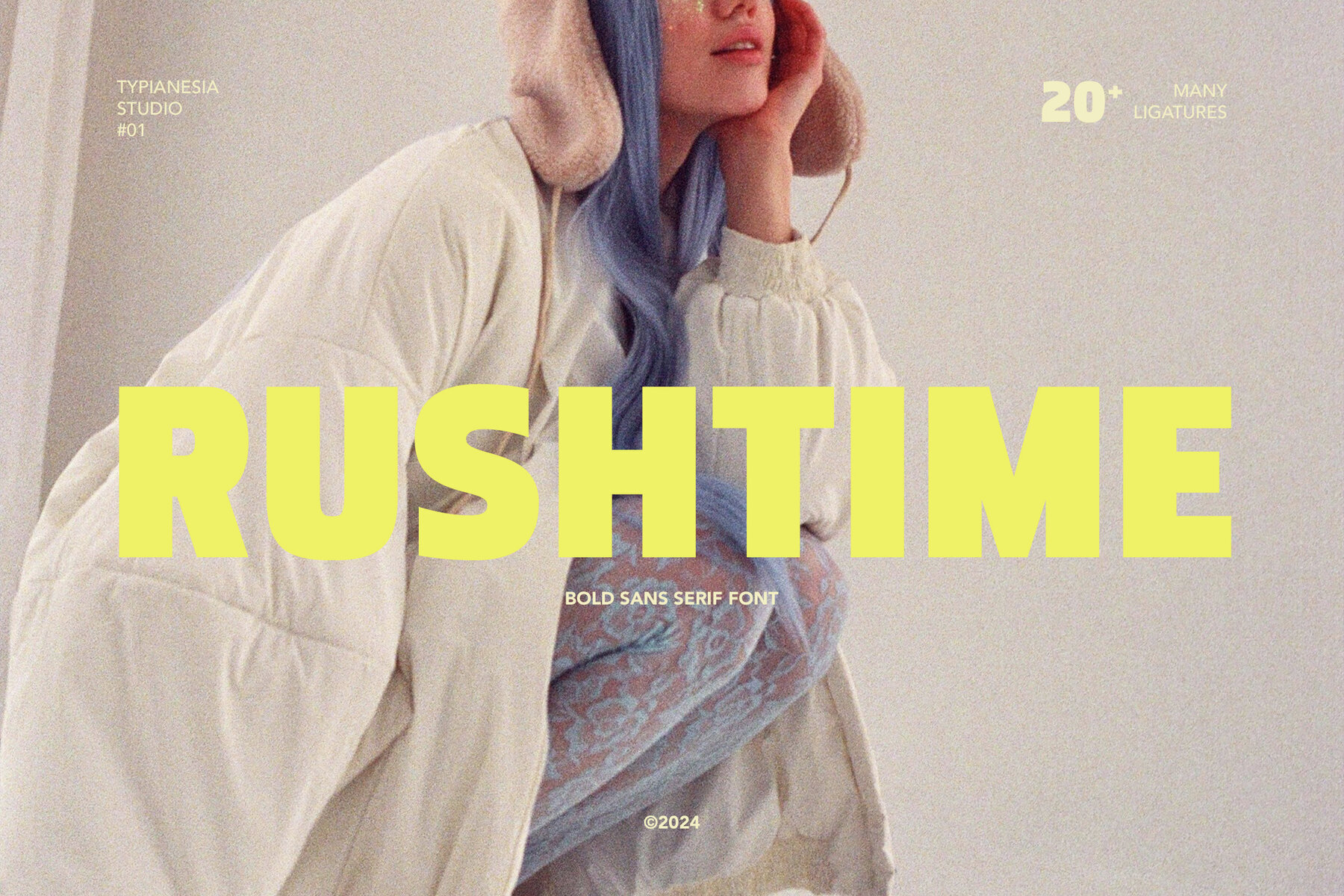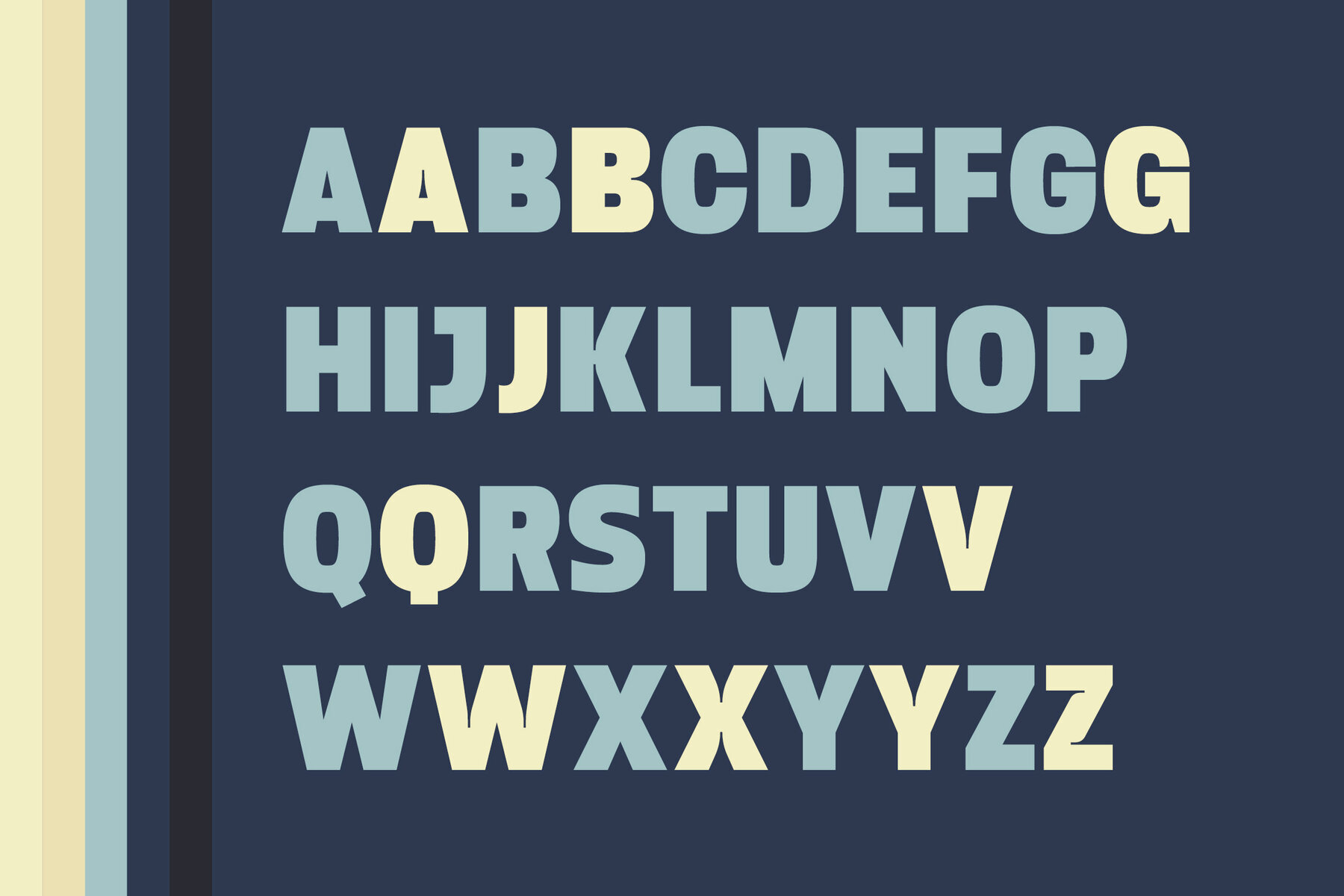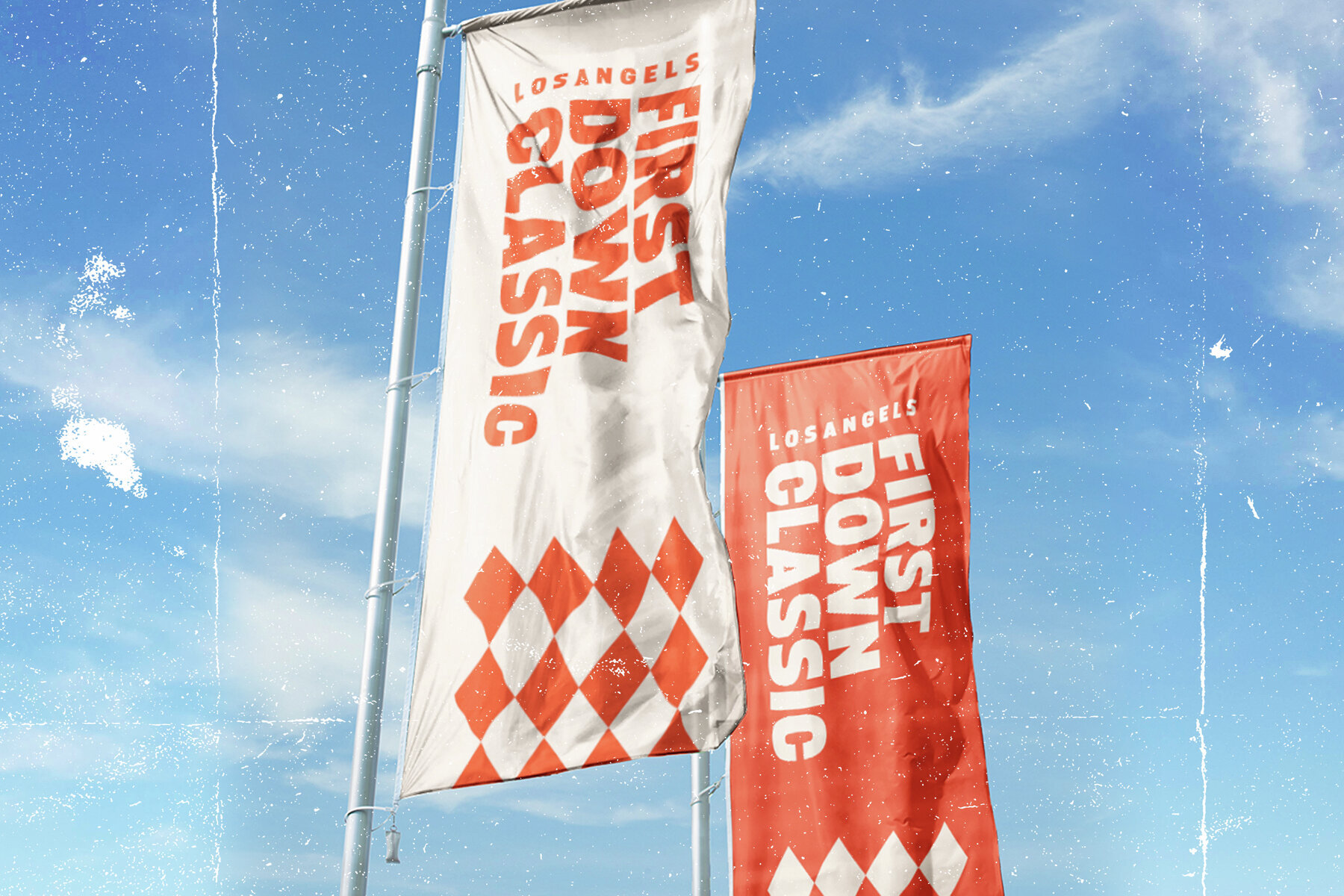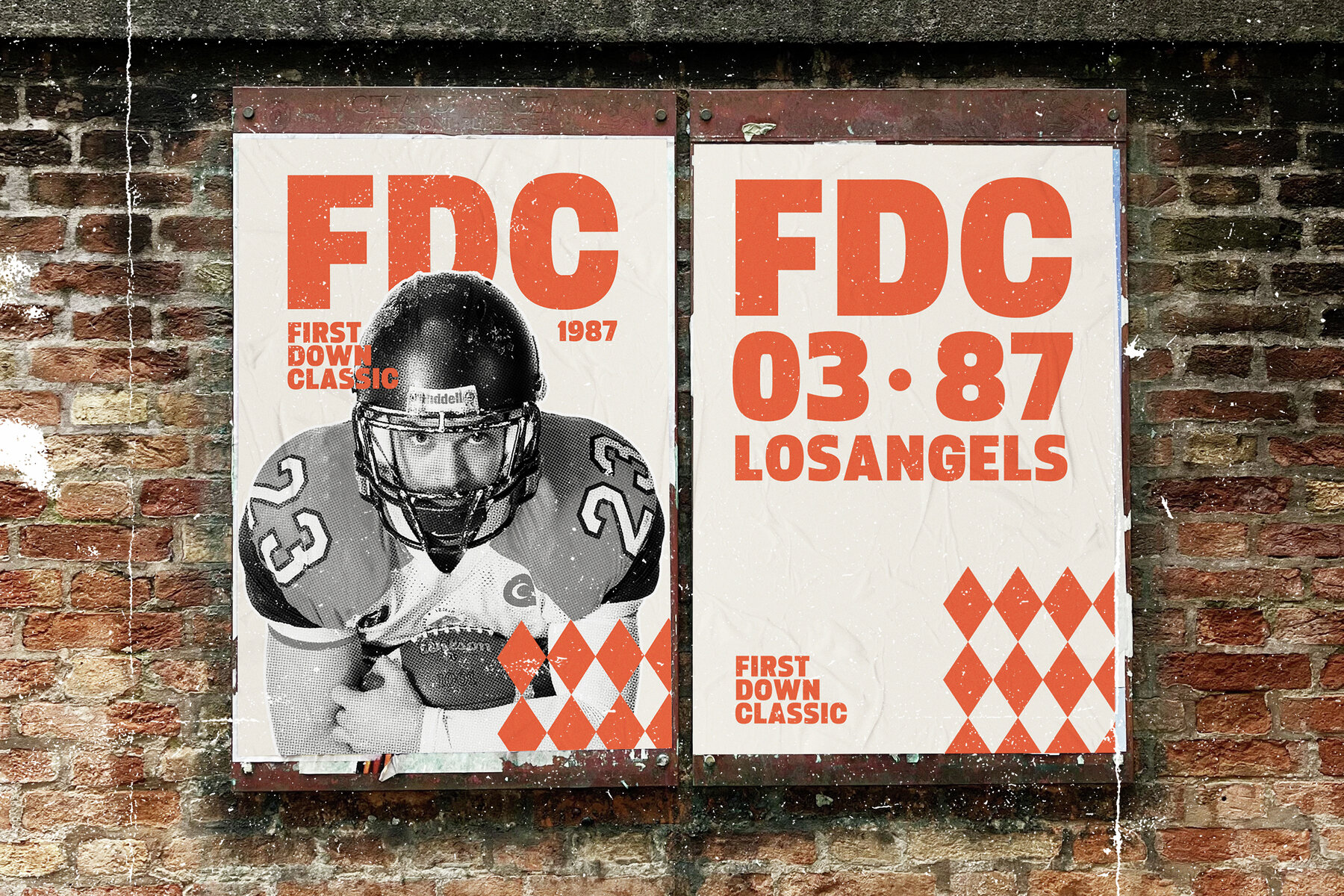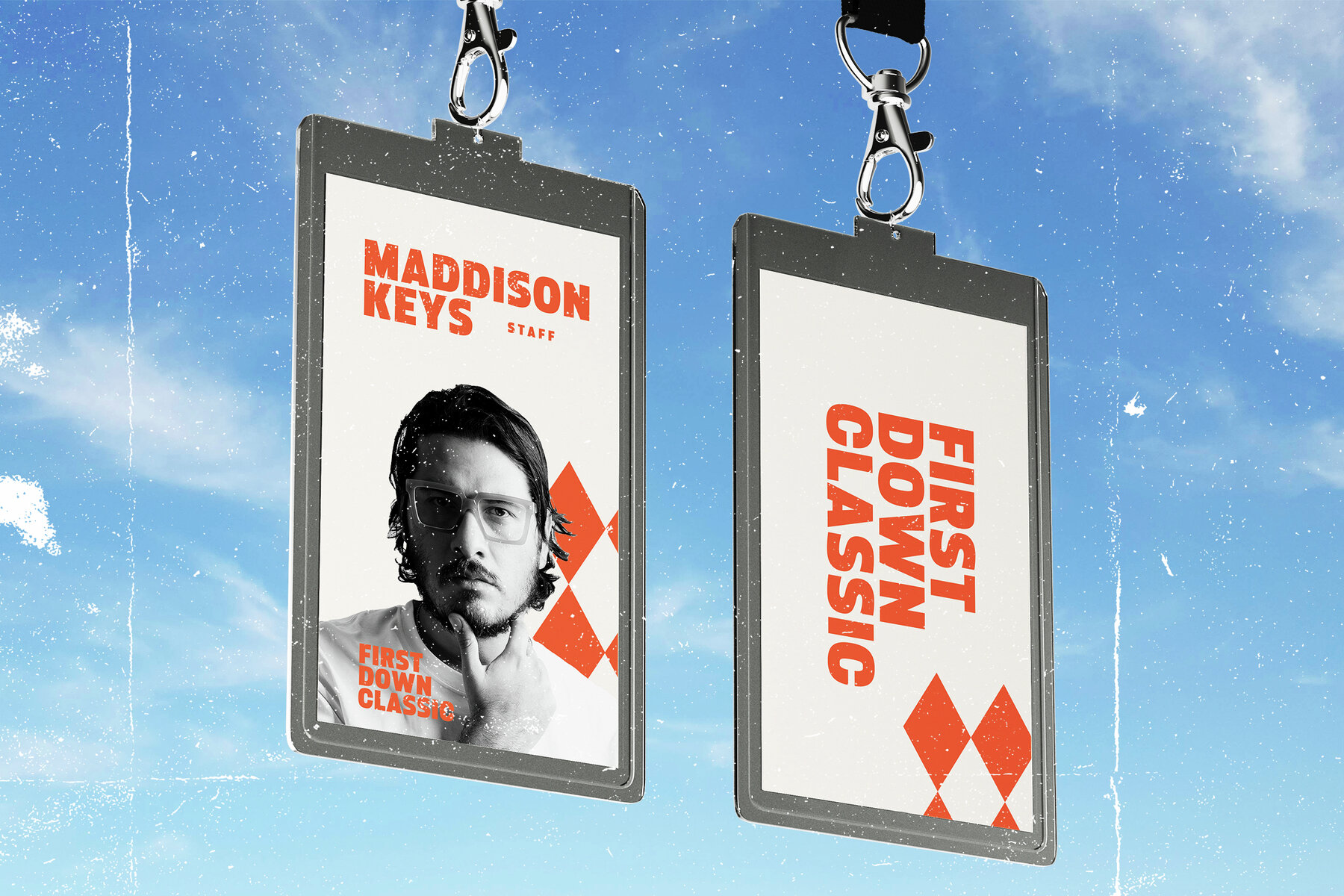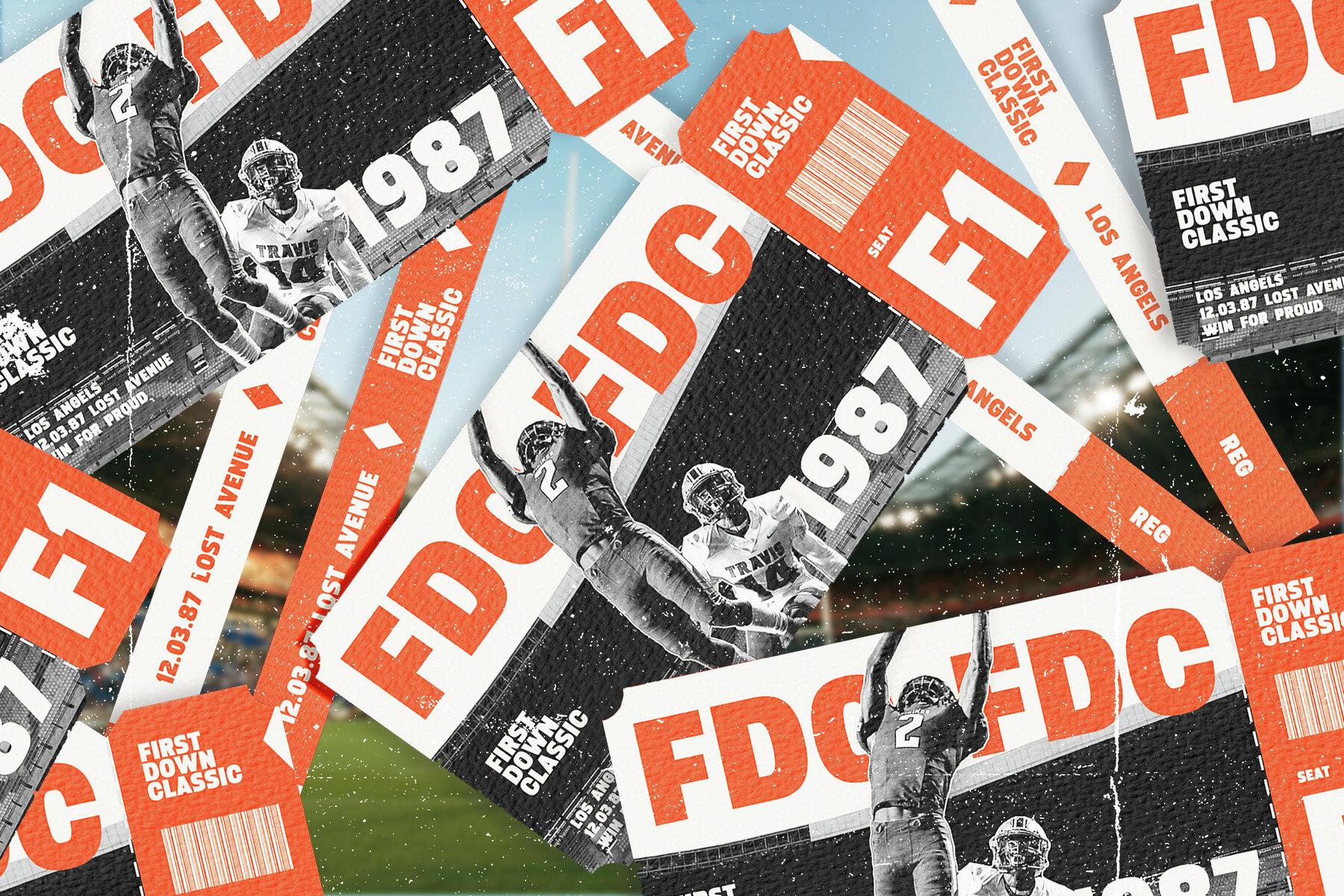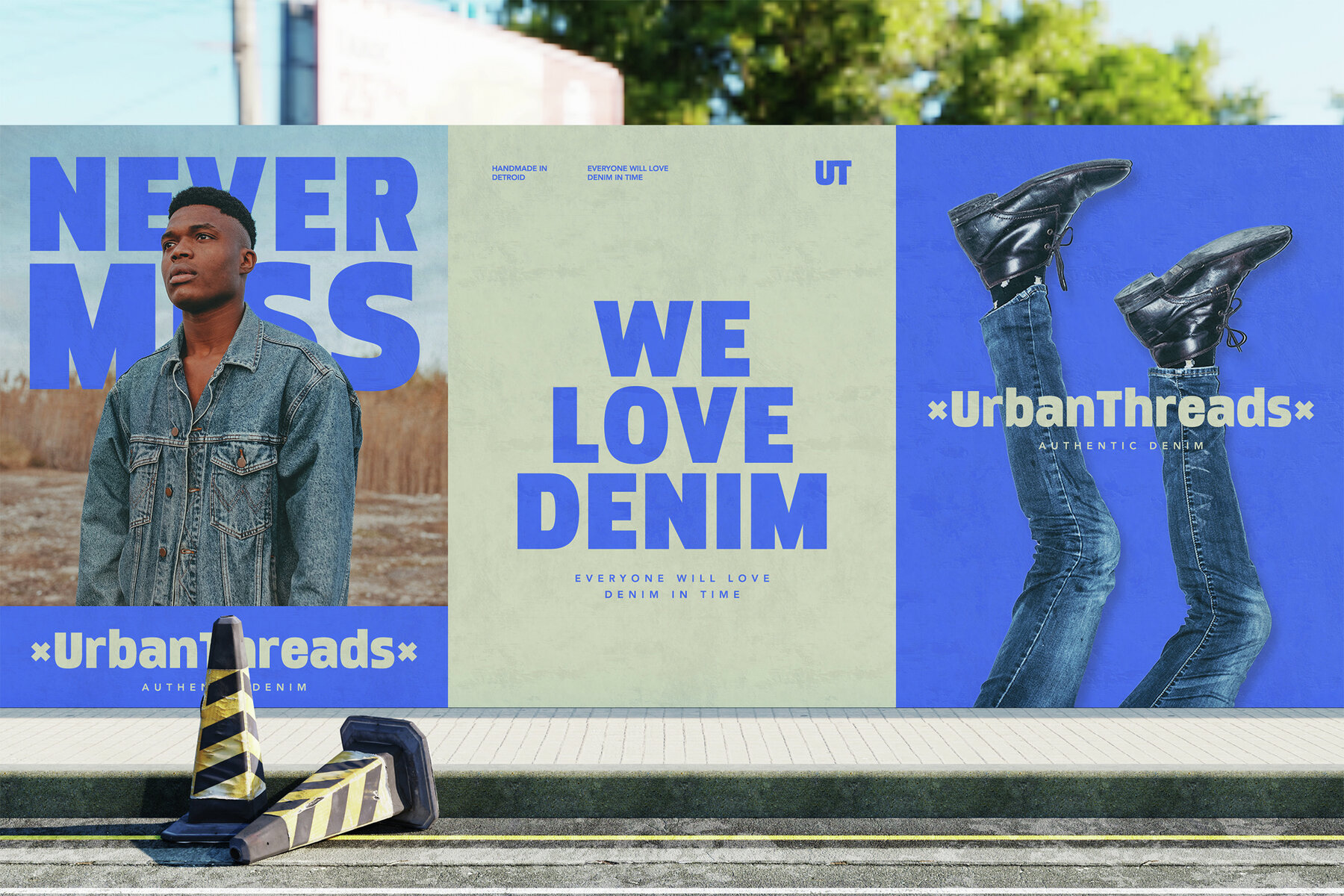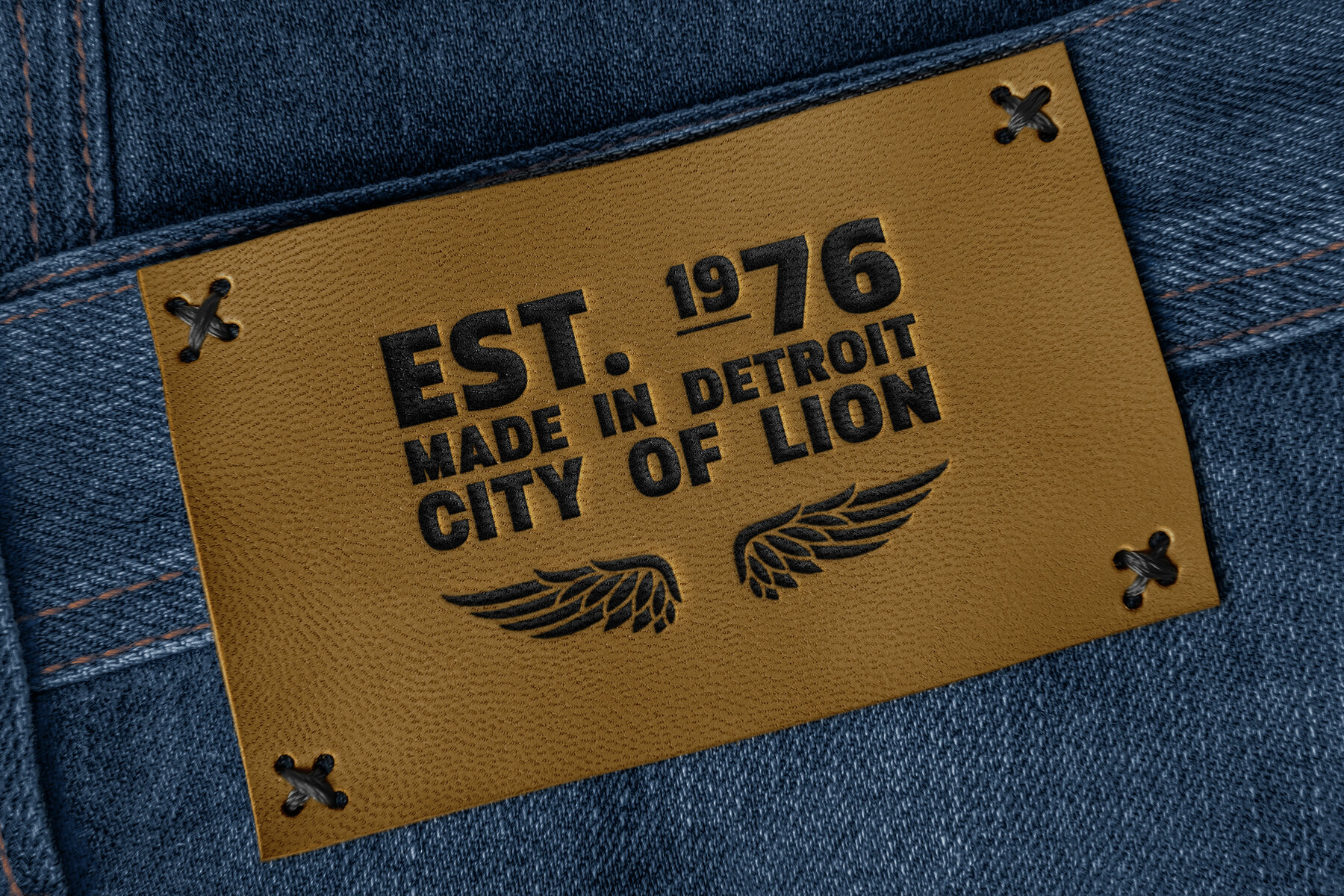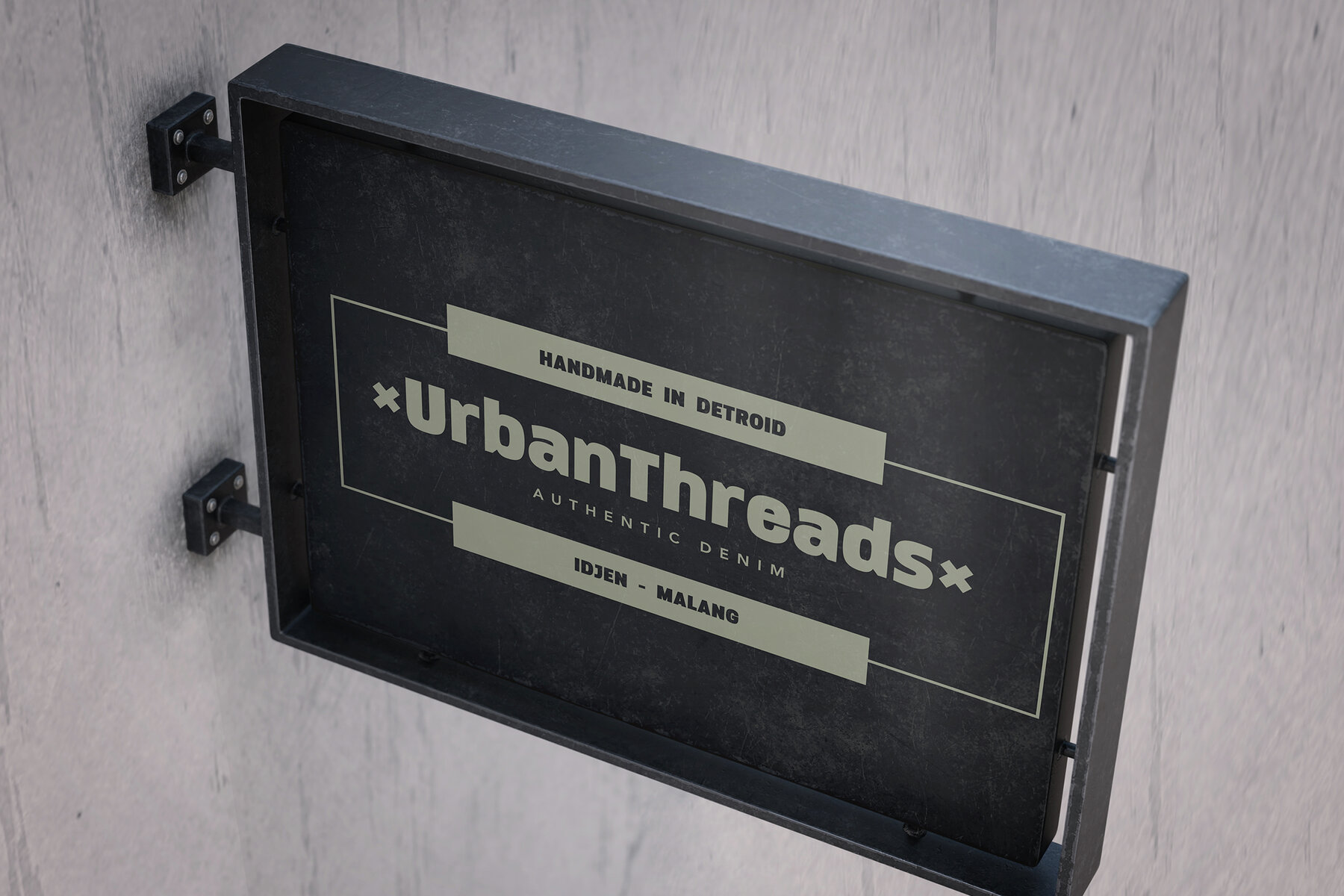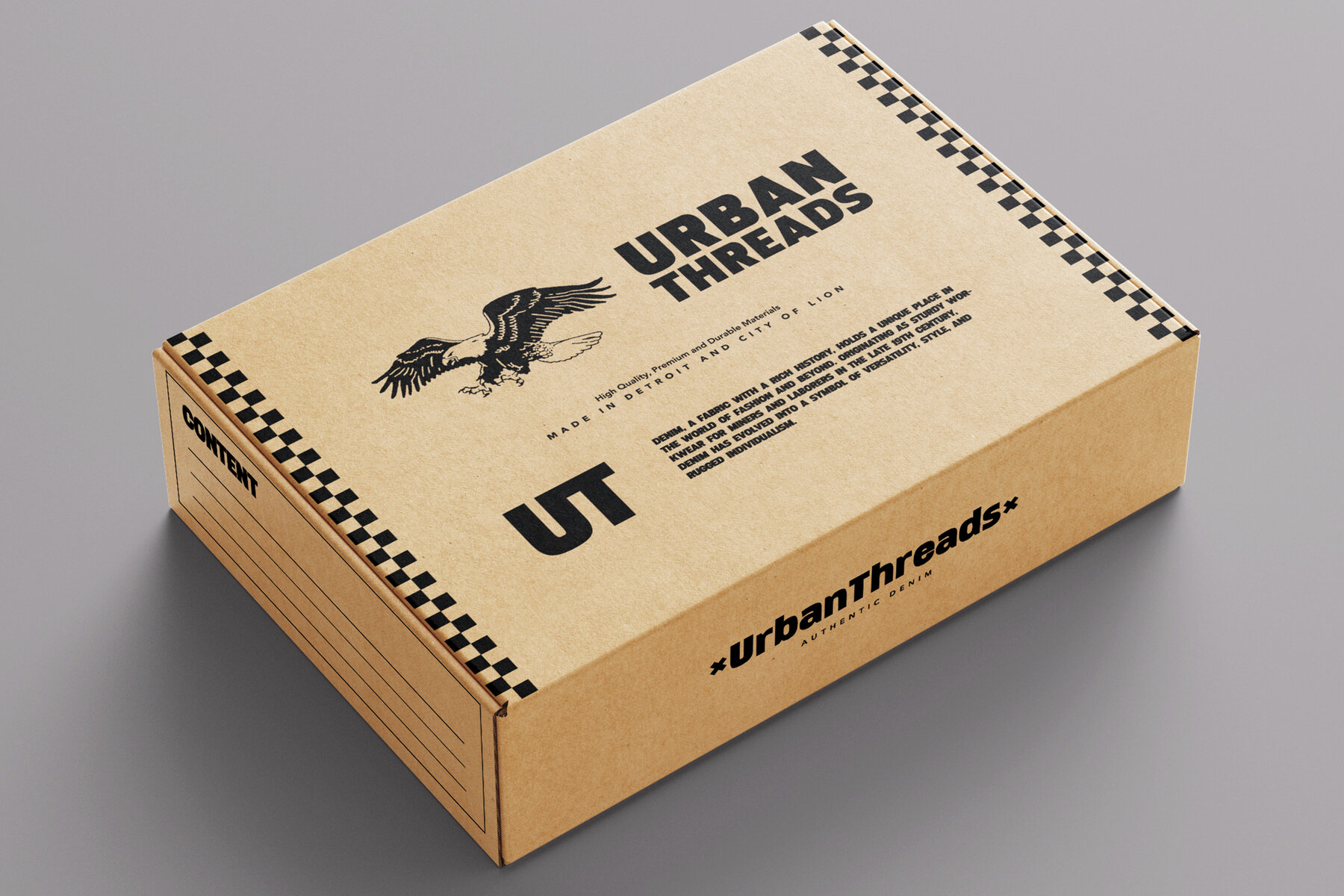
Rushtime Font
Rushtime Regular
Rushtime is a Modern Bold Sans Serif Font that commands attention with its strong and assertive appearance. Its bold letterforms and clean lines make it perfect for conveying messages with impact and clarity. This font is ideal for a wide range of applications, including headlines, logo design, website design, advertising and marketing materials, printed materials, use the font in printed materials such as posters, flyers, brochures, and business cards for a bold and attention-grabbing design. You can also Use the font for packaging design, signage and display, editorial design, branding and identity, corporate presentations, app interfaces and more, Use the font for touch of modern and bold is desired, Its versatility allows it to adapt to different design styles and effectively communicate the intended message. Rushtime features ligatures and comprehensive support for both uppercase and lowercase letters, punctuation marks, and numerals. These features enhance typographic creativity and flexibility, enabling designers to create visually compelling designs. Additionally, multilingual support ensures accessibility across different languages and regions. Crafted with expertise in typography and graphic design, Rushtime demonstrates a deep understanding of font legibility and visual impact. Its Bold Sans Serif style reflects proficiency in creating fonts that stand out and capture attention.